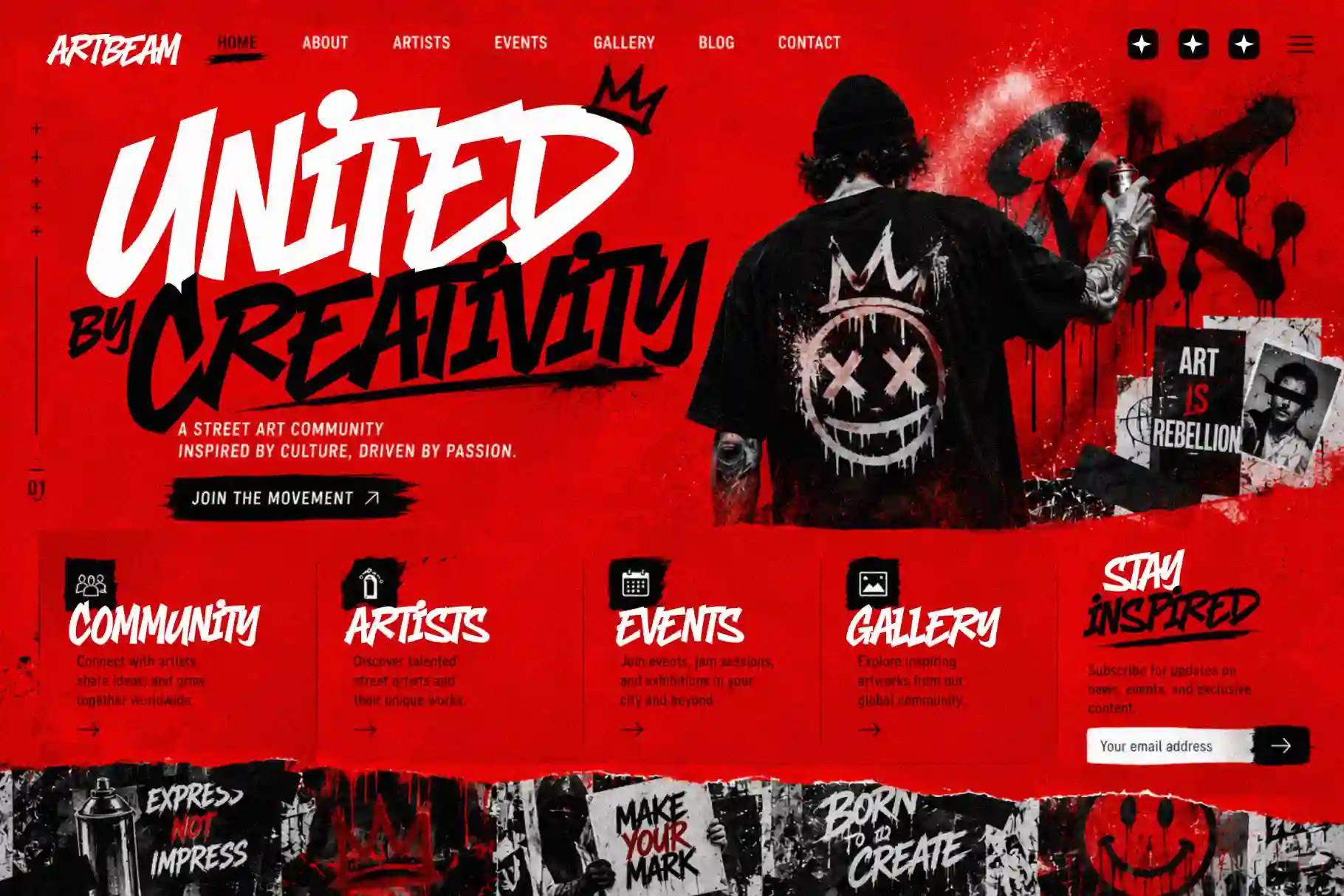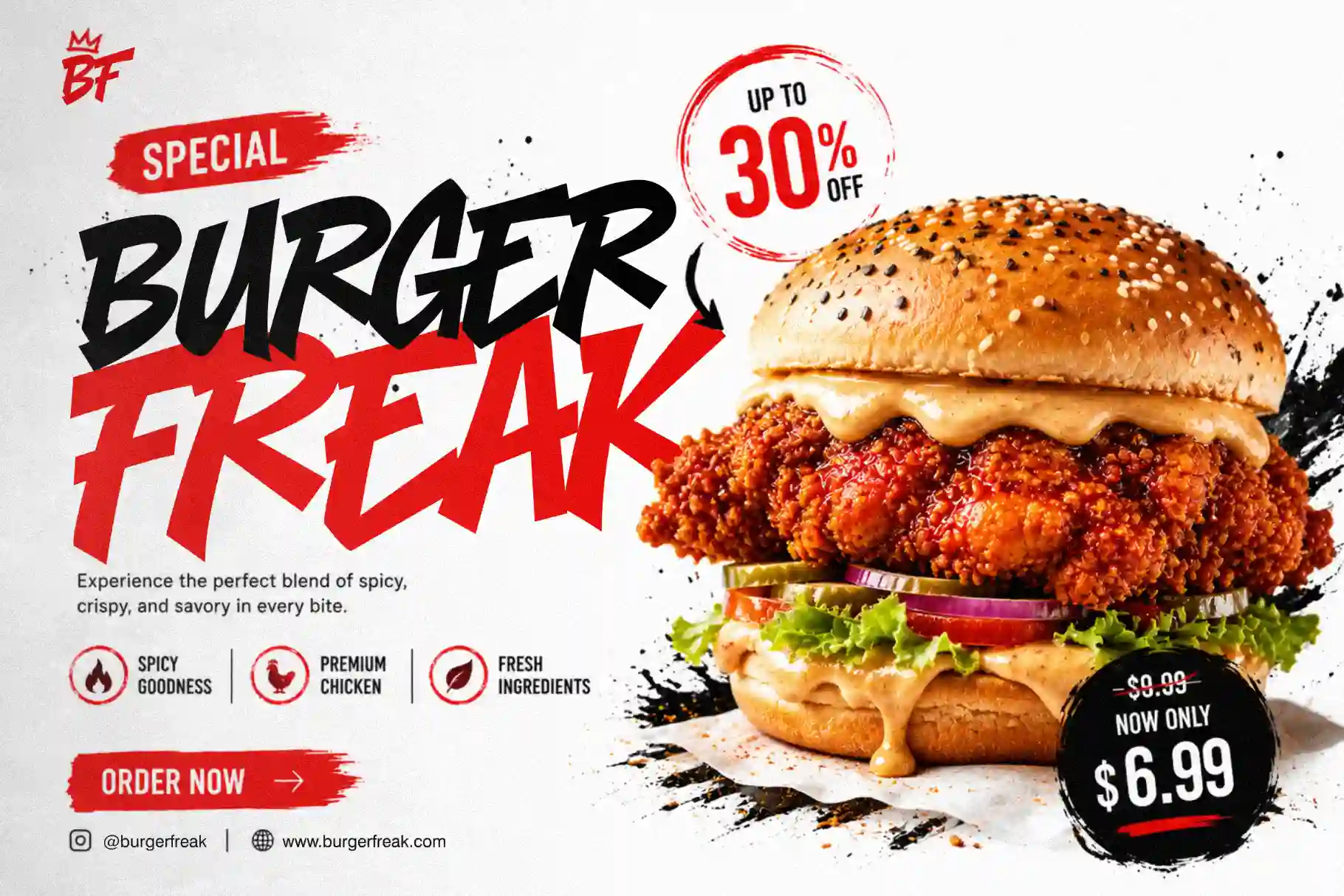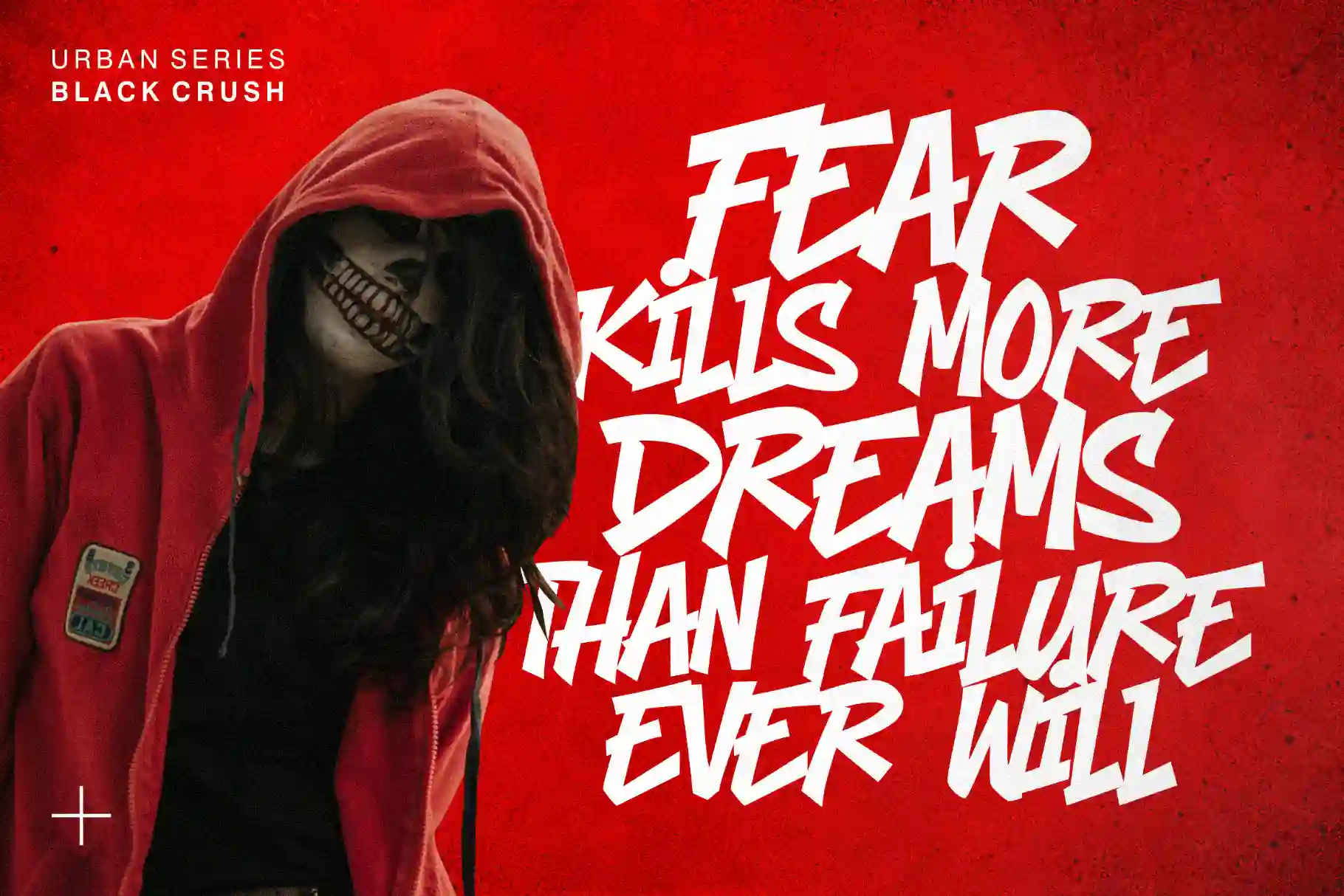
Black Crush – Aggressive Urban Font for Bold Street Design
If you are looking for an aggressive urban font that instantly delivers bold energy and raw street attitude, Black Crush – Aggressive Urban Font is the perfect choice. Designed with strong geometric shapes, sharp edges, and expressive urban aesthetics, this typeface is built for designers who want their work to stand out loudly and confidently.
This aggressive urban font works perfectly for posters, esports branding, cinematic titles, album covers, social media graphics, street-inspired visuals, and modern advertising campaigns. Whether you are designing for digital media or print projects, Black Crush brings a fearless and energetic personality into every layout.
Aggressive Urban Font with Powerful Street Energy
Black Crush was created to represent modern urban culture through typography. Unlike ordinary display fonts, this aggressive urban font combines sharp structure with rebellious visual character, creating a bold appearance that immediately captures attention.
The thick strokes and edgy letterforms make Black Crush ideal for impactful headlines and statement visuals. From music posters to gaming graphics, this font helps designers communicate strength, confidence, and intensity.
Its strong visual rhythm also makes this aggressive urban font suitable for modern branding projects that need a daring identity. Whether you are building a futuristic concept or gritty street-inspired artwork, Black Crush adapts beautifully across creative industries.
Why Black Crush Stands Out as an Aggressive Urban Font
Typography has the power to shape emotion, and Black Crush is designed to create impact instantly. What makes this aggressive urban font different is its balance between readability and raw attitude.
Some urban fonts sacrifice clarity for style, but Black Crush maintains excellent legibility while still delivering an energetic aesthetic. This makes it highly versatile for both large display text and bold branding applications.
Its urban-inspired construction creates a strong visual identity that feels modern, dynamic, and highly professional. Designers who need typography with confidence and edge will instantly connect with the unique personality of Black Crush.
Key Features of Black Crush – Aggressive Urban Font
- Strong urban-inspired design
- Bold display style for impactful headlines
- High readability for print and digital projects
This aggressive urban font is carefully crafted to ensure smooth usability across design software, branding systems, and advertising layouts.
Aggressive Urban Font for Posters and Headlines
Posters need typography that immediately grabs attention, and Black Crush excels in this area. As an aggressive urban font, it creates strong visual dominance that helps headlines feel larger, louder, and more energetic.
Whether you are designing music event posters, urban campaigns, gaming advertisements, or cinematic promotional graphics, Black Crush delivers a dramatic visual effect that keeps audiences engaged.
Its sharp structure and heavy weight allow this aggressive urban font to perform exceptionally well in large-scale compositions. The font naturally creates hierarchy and emphasis, making every title feel bold and unforgettable.
Font for Esports and Gaming Branding
Esports and gaming visuals require typography with confidence, motion, and intensity. Black Crush is the perfect aggressive urban font for tournament graphics, gaming logos, YouTube thumbnails, Twitch overlays, and streaming visuals.
Its sharp and modern aesthetic instantly communicates power and adrenaline, making it highly effective for competitive branding. The bold shapes also help titles remain readable across screens, livestream layouts, and social media content.
Font for Modern Branding
Modern branding often requires typography that feels distinctive and memorable. Black Crush works exceptionally well as an aggressive urban font for fashion campaigns, creative studios, music brands, street events, and youth-oriented businesses.
Its powerful construction creates logos and visual identities that feel modern yet rebellious. The bold geometry ensures strong visibility both online and in print, helping brands build instant recognition.
From cinematic posters to esports branding and modern advertising, Black Crush transforms ordinary typography into impactful visual communication. If you want your projects to feel louder, sharper, and more unforgettable, Black Crush is the aggressive urban font your creative arsenal needs today.